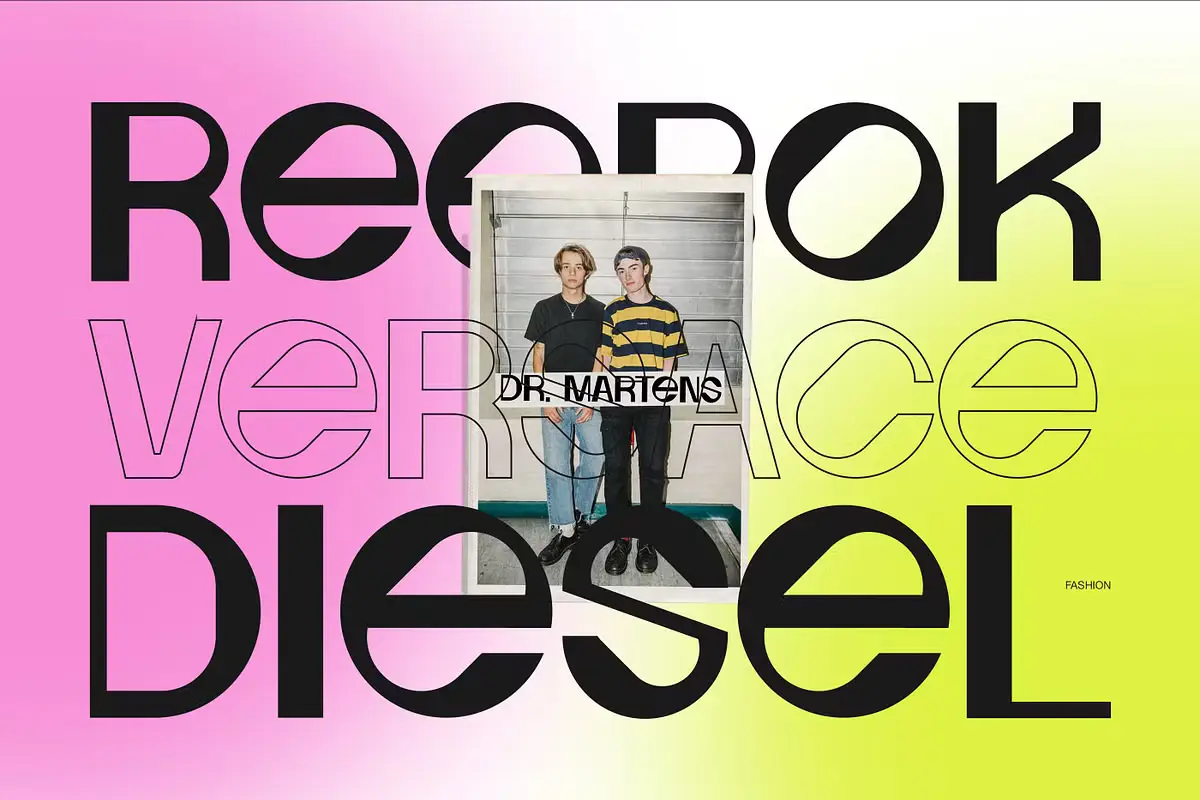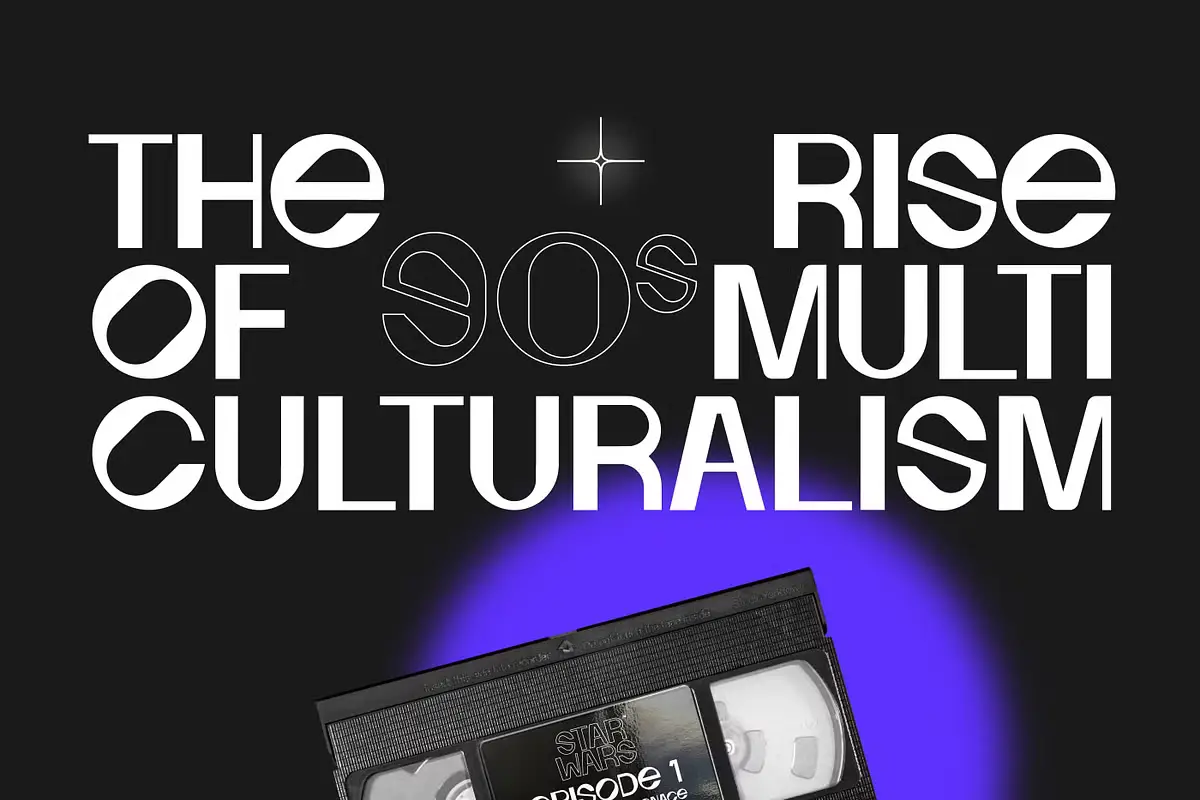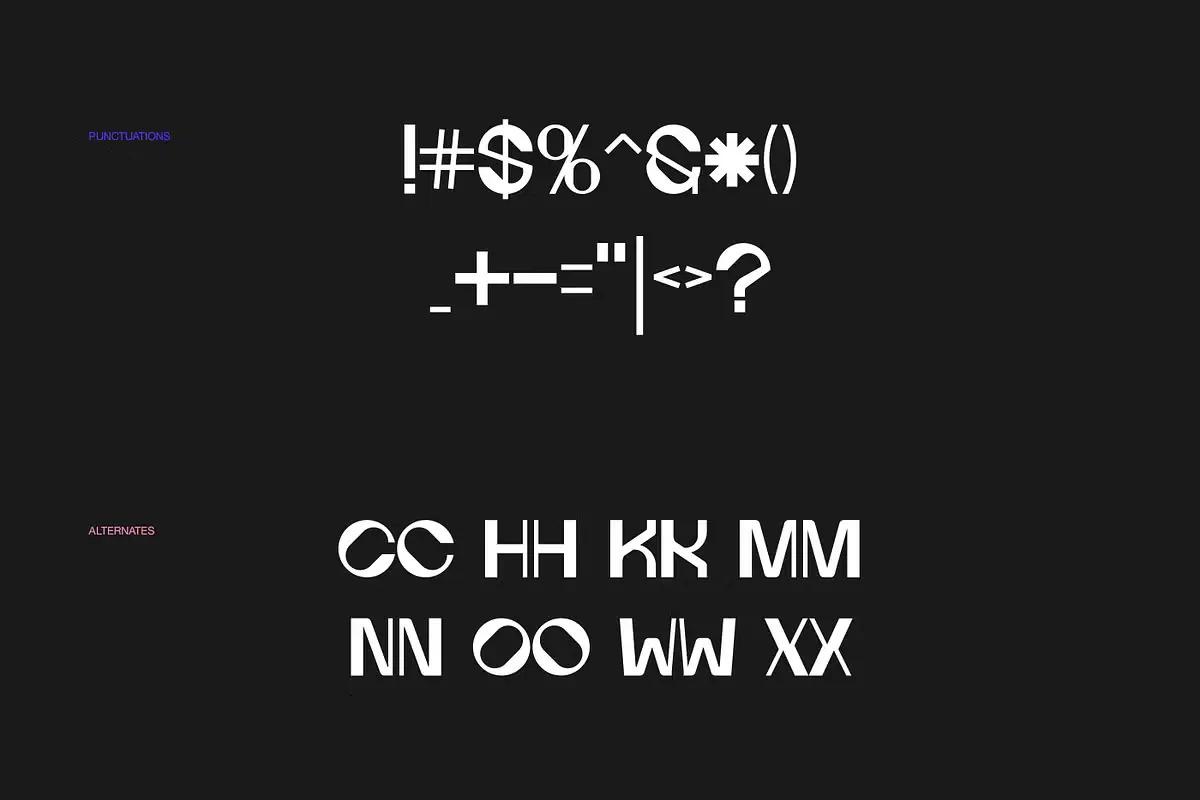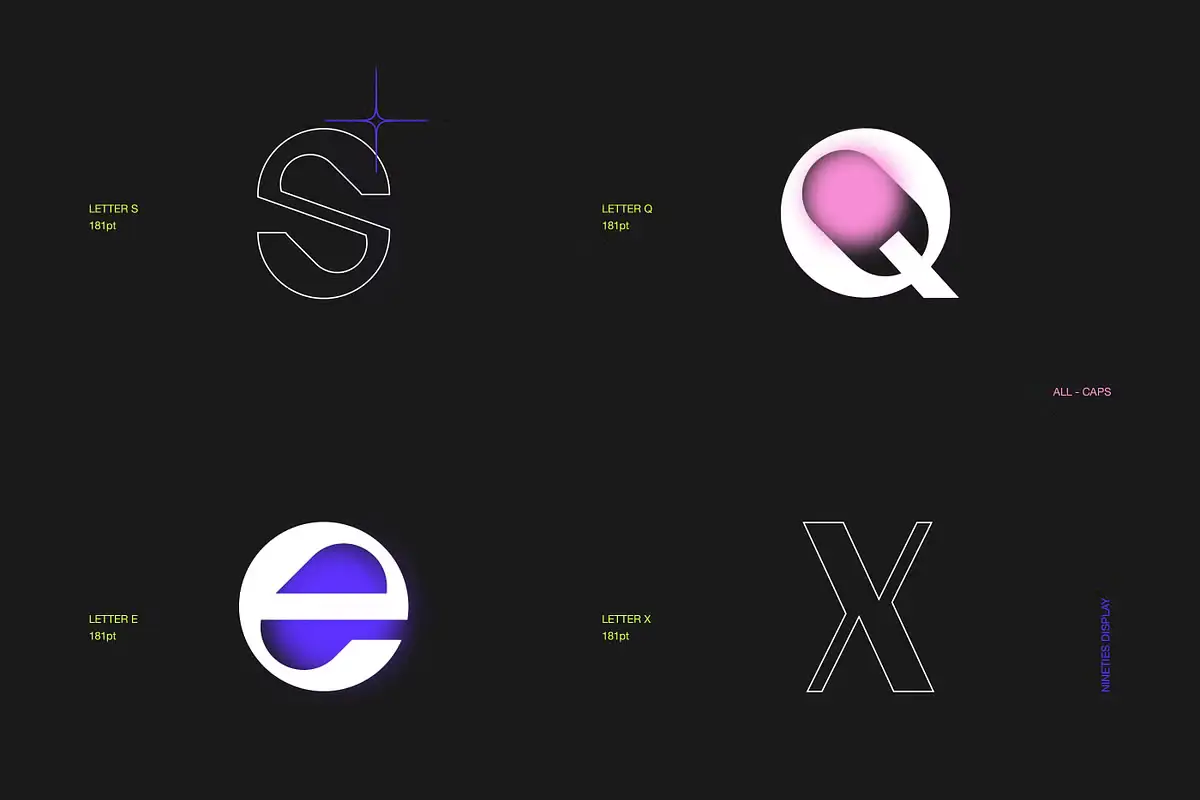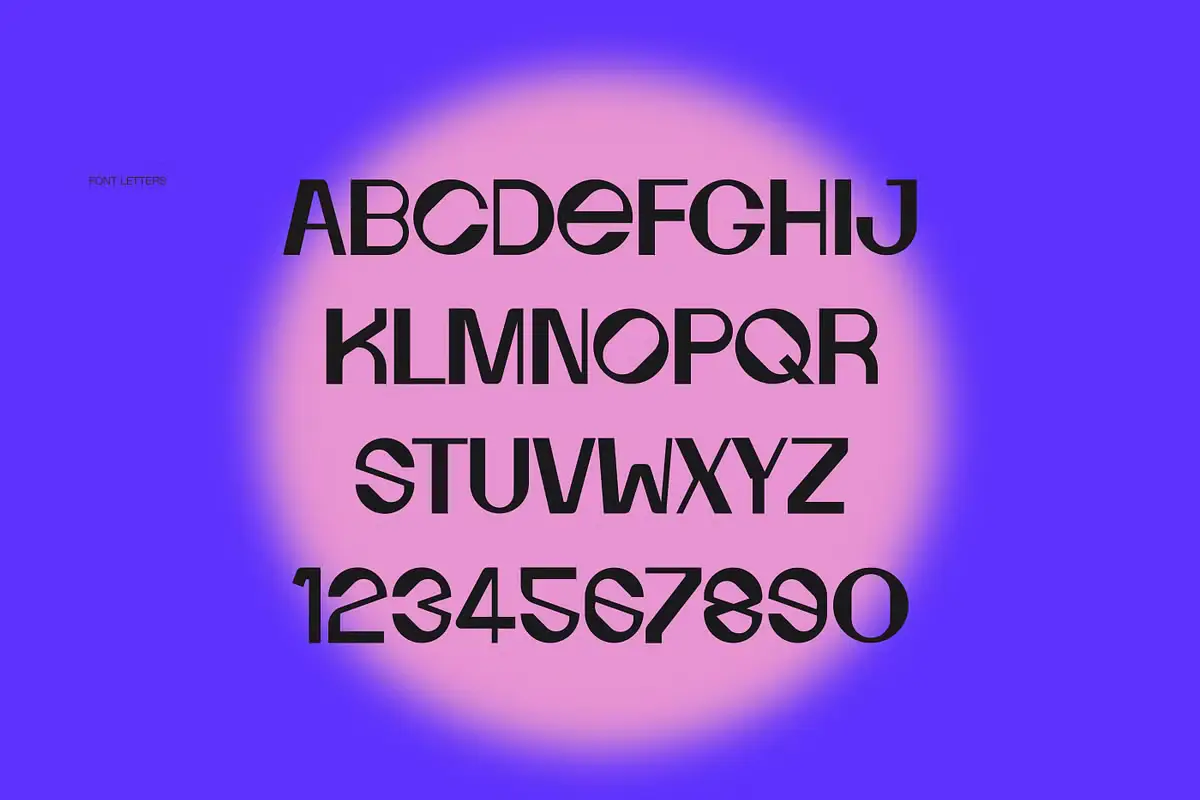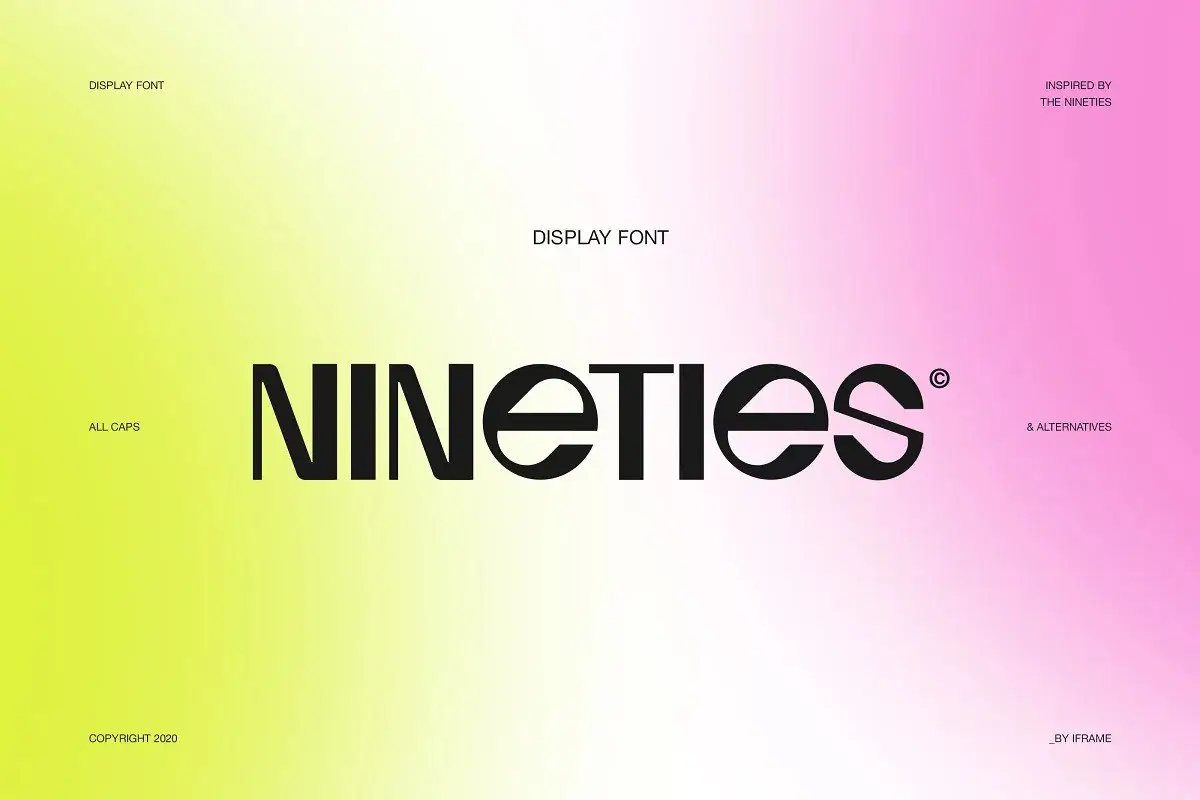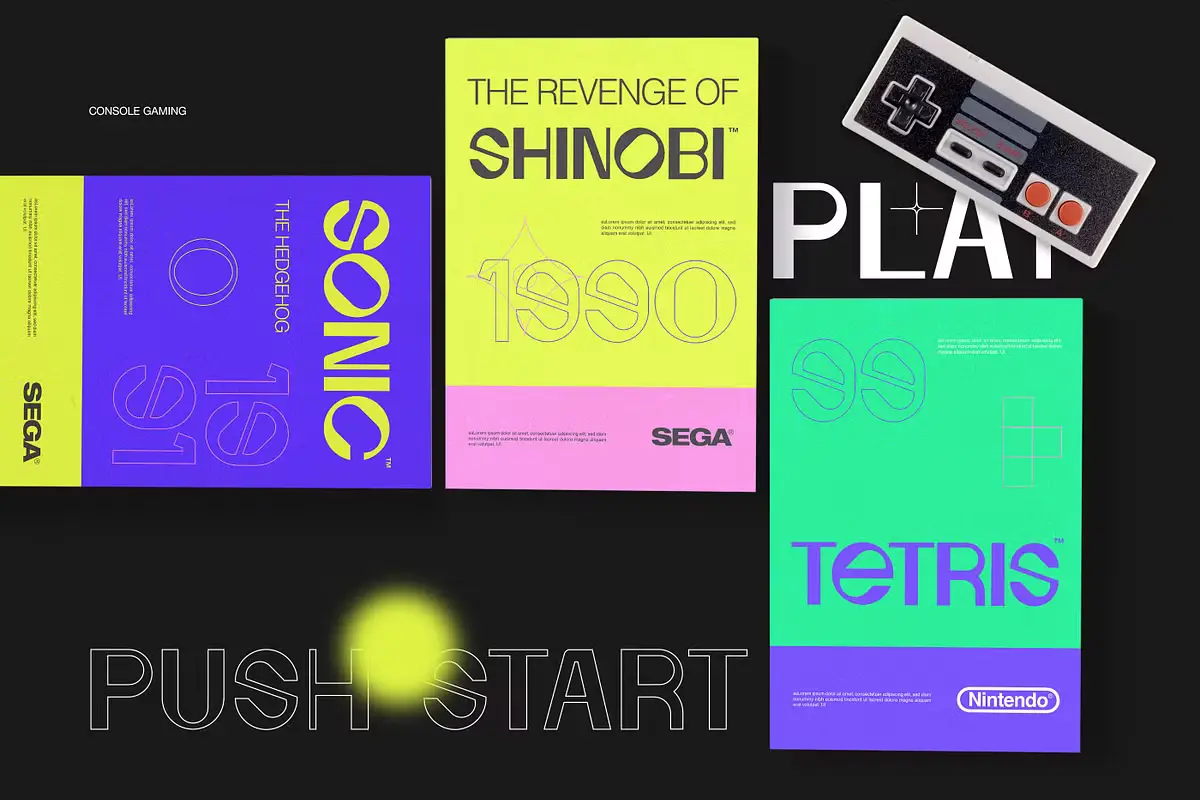
Nineties Display Font: A Stylish Tribute to the Iconic Decade
If you’re looking to add a touch of nostalgia to your designs, the Nineties Display Font is the perfect choice. This modern, all-caps font captures the essence of the vibrant 1990s, making it both memorable and stylish. Whether you’re creating sci-fi scenes, retro gaming graphics, or eye-catching magazine layouts, this font will elevate your project to new heights.
The Nineties Display Font is designed for creatives who appreciate the unique flair of the 1990s. Its bold and distinctive style is perfect for a wide range of applications, from logos and invitations to DIY projects and quotes. This font is not just a typeface; it’s a statement that brings a sense of fun and nostalgia to any design.
- ✅ All Caps Design → Perfect for making a strong visual impact in your projects.
- ✅ Versatile Usage → Ideal for magazines, logos, postcards, and more.
- ✅ Modern Aesthetic → Blends retro vibes with contemporary design trends.
- ✅ Unique Style → Stand out with a font that evokes the spirit of the nineties.
Why Choose This Product
The Nineties Display Font is more than just a typeface; it’s an invitation to relive the vibrant culture of the 1990s. Whether you’re a designer, a marketer, or simply someone who loves creative projects, this font offers a unique aesthetic that can enhance your work. Trusted by designers worldwide, it is a go-to choice for anyone looking to make a statement.
| Style | Display |
| Case | All Caps |